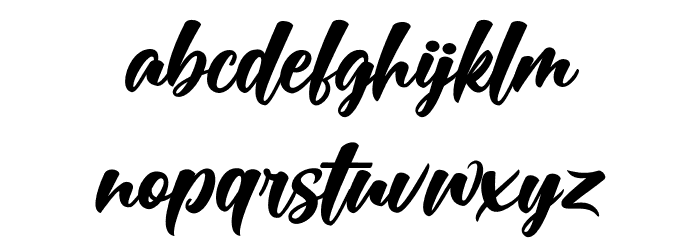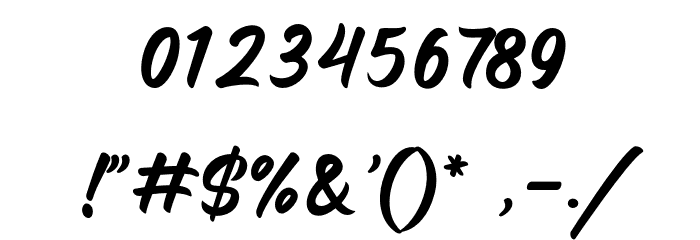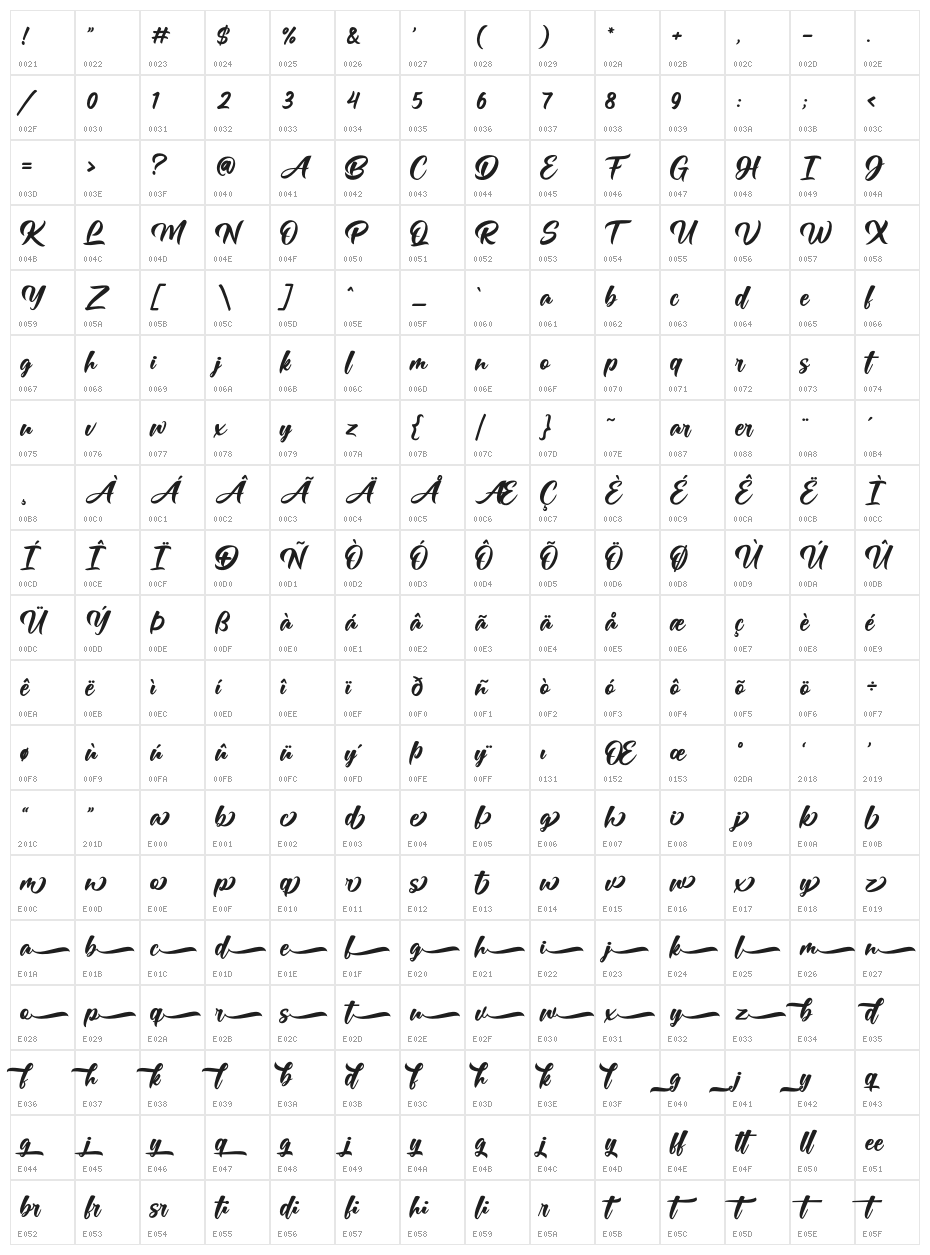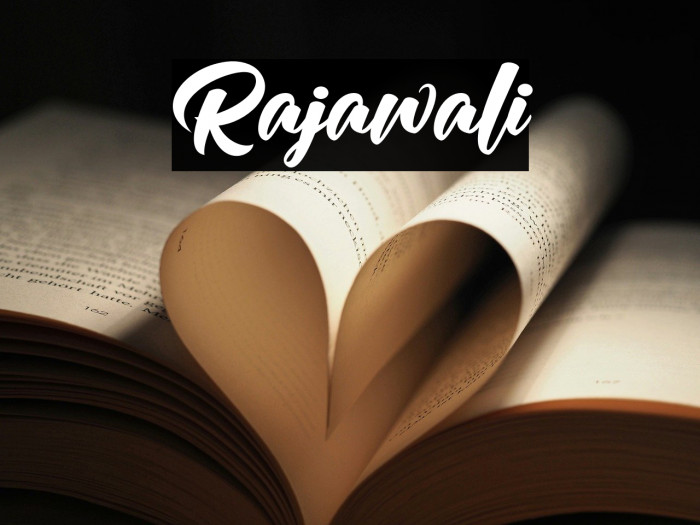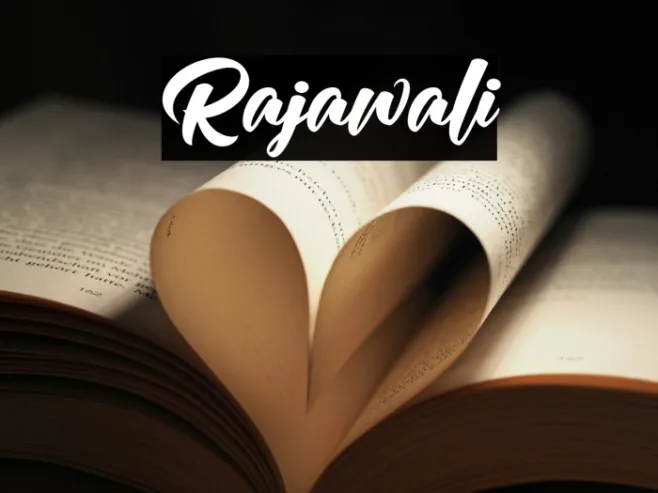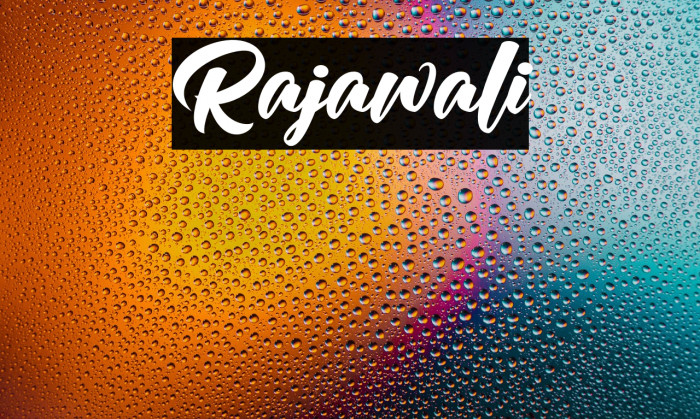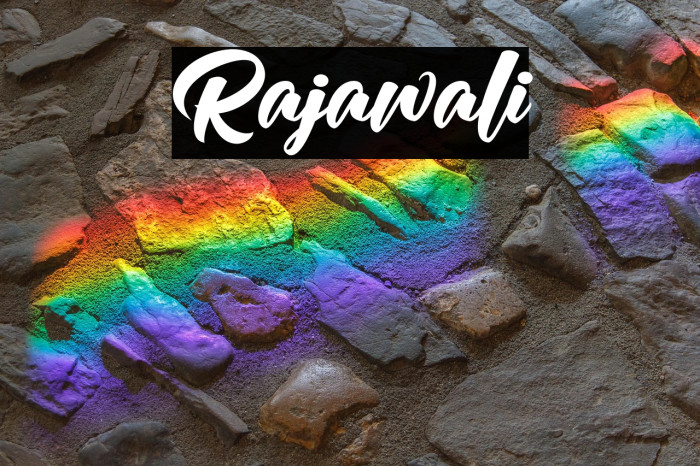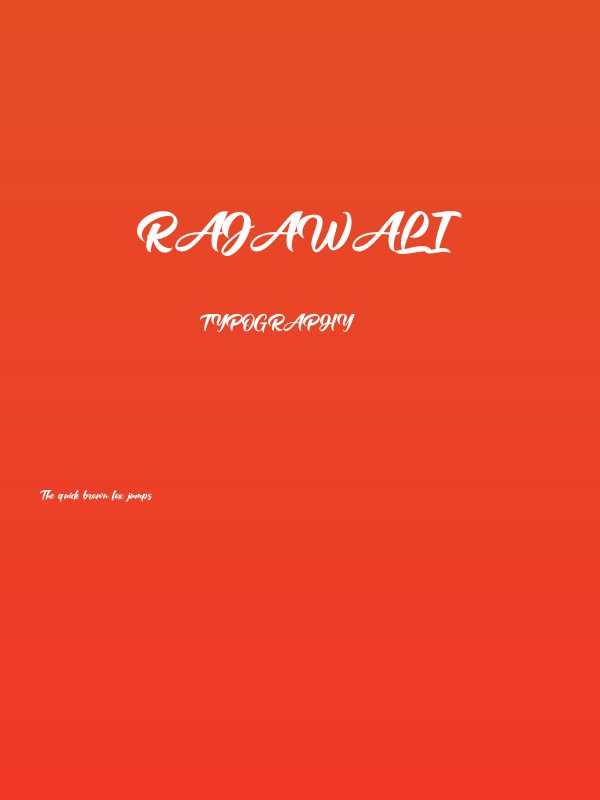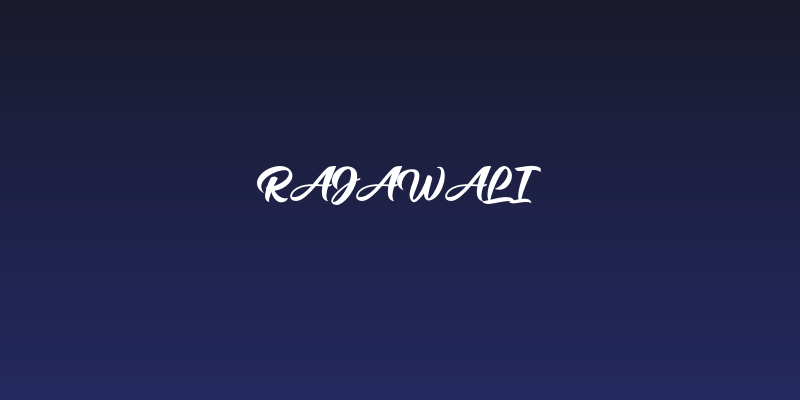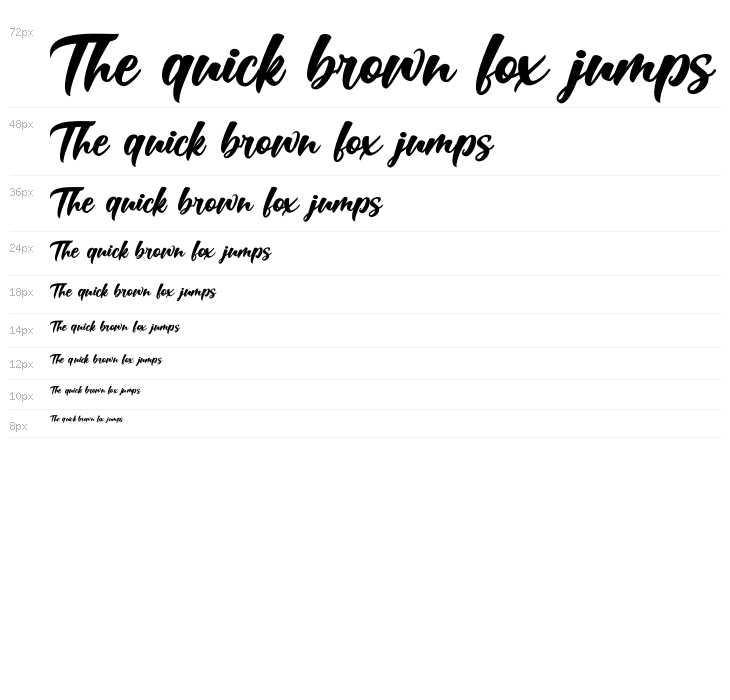
Rajawali Font
This font features a bold and flowing script style, characterized by its elegant and dynamic strokes. The letters are interconnected, creating a sense of fluidity and movement. The uppercase letters are slightly more ornate, with sweeping curves and flourishes, while the lowercase letters maintain a consistent rhythm and balance. The numerals and special characters are designed to complement the overall aesthetic, ensuring versatility across various applications. This font exudes a sense of sophistication and creativity, making it ideal for projects that require a touch of elegance and flair.
A bold, flowing script font with elegant, interconnected strokes.
- Proposed Projects: Ideal for wedding invitations, branding, logo design, and elegant packaging.
- Overall Style: Elegant, Decorative
- Use Case: Logos, Invitations, Branding